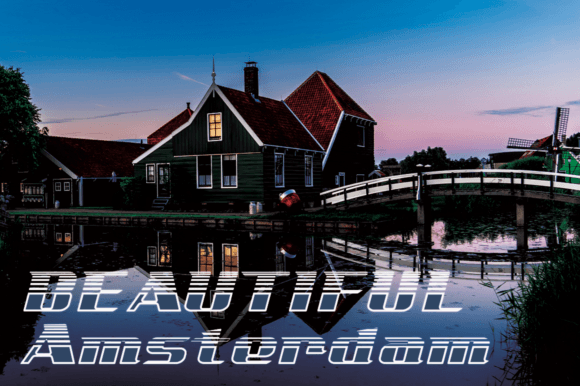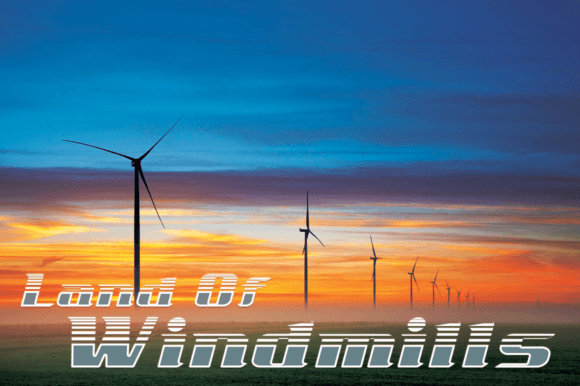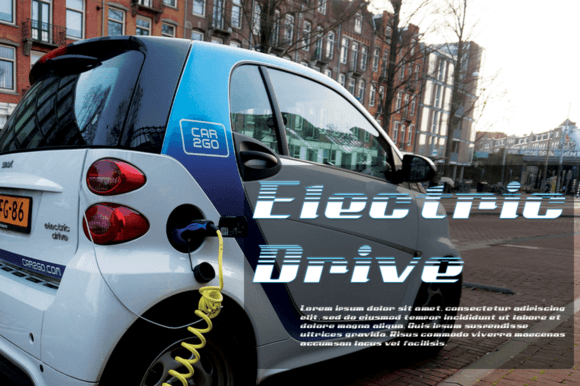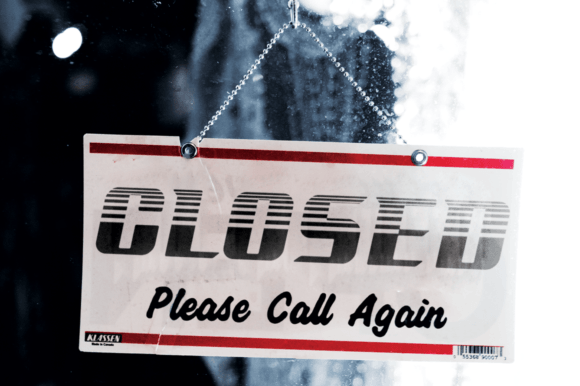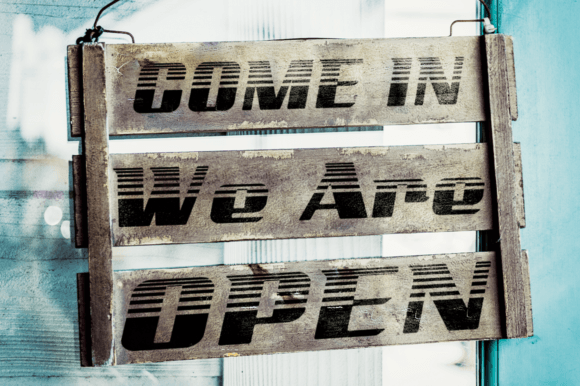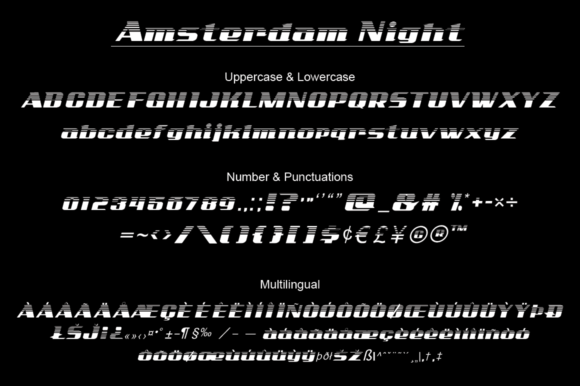
Discover the Magic of Amsterdam Night Font: Elevate Your Designs with a Cool and Modern Display Font
Are you on the hunt for a font that can instantly elevate your designs and make them stand out from the crowd? Look no further than the Amsterdam Night Font. This cool and modern display font is perfect for designers and crafters who want to add a touch of sophistication and elegance to their work. In this article, we’ll dive into the features and benefits of Amsterdam Night Font, and explore how you can use it to take your designs to the next level.
What is Amsterdam Night Font?
Amsterdam Night Font is a beautiful and professional typeface that’s designed to make a statement. With its sleek lines, elegant curves, and modern aesthetic, this font is perfect for a wide range of design projects. Whether you’re working on a movie poster, headline, Instagram post, block letter, subheading, logo design, or web design, Amsterdam Night Font is the perfect choice.
Key Features of Amsterdam Night Font
So, what makes Amsterdam Night Font so special? Here are just a few of its key features:
- Cool and Modern Design: Amsterdam Night Font has a unique and stylish design that’s perfect for designers who want to create modern and trendy designs.
- High-Quality Letters: The font features high-quality letters with sleek lines and elegant curves, making it perfect for use in a variety of design projects.
- Versatile: Amsterdam Night Font is a versatile font that can be used in a wide range of design projects, from movie posters and headlines to Instagram posts and logo designs.
- Easy to Read: Despite its modern and stylish design, Amsterdam Night Font is easy to read, making it perfect for use in body text and other applications where readability is important.
Benefits of Using Amsterdam Night Font
So, why should you choose Amsterdam Night Font for your next design project? Here are just a few of the benefits of using this amazing font:
- Instantly Elevate Your Designs: With Amsterdam Night Font, you can instantly elevate your designs and make them stand out from the crowd.
- Save Time: The font’s high-quality letters and versatile design make it easy to use and save time on your design projects.
- Professional Look and Feel: Amsterdam Night Font gives your designs a professional look and feel, making it perfect for use in business and marketing materials.
- Easy to Customize: The font is easy to customize, allowing you to adjust the size, color, and style to fit your design needs.
How to Use Amsterdam Night Font
Using Amsterdam Night Font is easy. Here are just a few tips to get you started:
- Use it as a Display Font: Amsterdam Night Font is perfect for use as a display font in movie posters, headlines, and other applications where you want to make a statement.
- Pair it with Other Fonts: The font pairs well with other fonts, making it easy to use in combination with other typefaces to create a unique and stylish design.
- Experiment with Colors and Sizes: Don’t be afraid to experiment with different colors and sizes to find the perfect look for your design.
In conclusion, Amsterdam Night Font is a cool and modern display font that’s perfect for designers and crafters who want to elevate their designs and make them stand out from the crowd. With its sleek lines, elegant curves, and versatile design, this font is perfect for a wide range of design projects. Whether you’re working on a movie poster, headline, Instagram post, block letter, subheading, logo design, or web design, Amsterdam Night Font is the perfect choice. So why wait? Download Amsterdam Night Font today and start creating stunning designs that will leave a lasting impression.